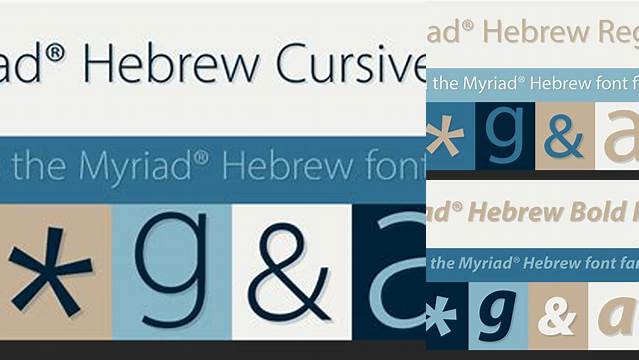
Introduction: Diving into the World of Myriad Hebrew Regular Font
Hey guys! Let’s dive into the fascinating world of fonts, specifically focusing on the Myriad Hebrew Regular font. If you're a designer, a content creator, or just someone who appreciates typography, you know how crucial the right font can be. It’s not just about making text readable; it’s about conveying the right mood, style, and message. And when it comes to Hebrew typography, the Myriad Hebrew Regular font stands out for its versatility and clarity. This article will guide you through everything you need to know about this fantastic font, including its history, features, and, most importantly, where you can find a free download.
The Myriad Hebrew Regular font is more than just a typeface; it's a tool that can elevate your projects. Whether you're working on a website, a print publication, or a digital presentation, the right font can make all the difference. Think about it – a clean, legible font ensures your message is easily understood, while a stylish font adds a touch of personality and flair. This is where Myriad Hebrew Regular shines. It strikes a perfect balance between readability and aesthetics, making it a go-to choice for many professionals. Its clean lines and balanced letterforms make it ideal for both body text and headlines, ensuring consistency across your design. Plus, its versatility means it can be used in a variety of contexts, from formal business documents to creative marketing materials. So, if you're looking to enhance your projects with a reliable and visually appealing Hebrew font, you're in the right place. Let's explore why Myriad Hebrew Regular is so popular and how you can get your hands on it.
But why is choosing the right font so important in the first place? Well, imagine reading a beautifully written article in a font that's difficult to decipher. Frustrating, right? Or picture a sleek, modern website using a font that looks outdated and clunky. It just doesn't work. The font you choose is a crucial element of your overall design, affecting readability, engagement, and the overall impression your work leaves on your audience. For Hebrew text, this is even more critical. Hebrew script has its own unique characteristics, and a well-designed font like Myriad Hebrew Regular takes these into account, ensuring the text is not only legible but also aesthetically pleasing. So, let's get started and explore the world of Myriad Hebrew Regular and how it can transform your projects!
What Makes Myriad Hebrew Regular Font Special?
So, what's the big deal about the Myriad Hebrew Regular font? What makes it so special and why should you consider using it in your projects? Well, let’s break it down. First and foremost, it’s all about readability. Readability is king when it comes to typography, and Myriad Hebrew Regular excels in this area. Its clean and straightforward design ensures that each letter is distinct and easy to recognize, even at smaller sizes. This is crucial for body text, where you want readers to be able to comfortably read long passages without straining their eyes. The font’s consistent letter spacing and balanced proportions contribute to a smooth reading experience, making it a joy to engage with the content.
Beyond readability, the Myriad Hebrew Regular font also boasts a high level of versatility. It's not a one-trick pony; this font can adapt to a wide range of design styles and applications. Whether you're designing a formal business report, a creative marketing brochure, or a modern website, Myriad Hebrew Regular fits right in. Its neutral and contemporary appearance makes it a perfect choice for projects that require a professional yet approachable feel. It works equally well for headlines, subheadings, and body text, providing a cohesive look and feel across your design. This adaptability is a huge advantage, saving you time and effort in finding the right font for each specific task. You can rely on Myriad Hebrew Regular to deliver consistent results, no matter the context.
Another key aspect of the Myriad Hebrew Regular font is its modern aesthetic. It has a clean, contemporary look that feels fresh and up-to-date. This is particularly important in today's design landscape, where modern and minimalist styles are highly valued. The font’s clean lines and simple letterforms convey a sense of clarity and sophistication, making it an excellent choice for projects that aim to project a modern and professional image. Its timeless design ensures that it won't look dated anytime soon, making it a worthwhile investment for your design toolkit. Furthermore, Myriad Hebrew Regular is designed to complement a wide range of other fonts, giving you the flexibility to create visually interesting and dynamic designs. It pairs beautifully with both serif and sans-serif fonts, allowing you to achieve the perfect typographic harmony.